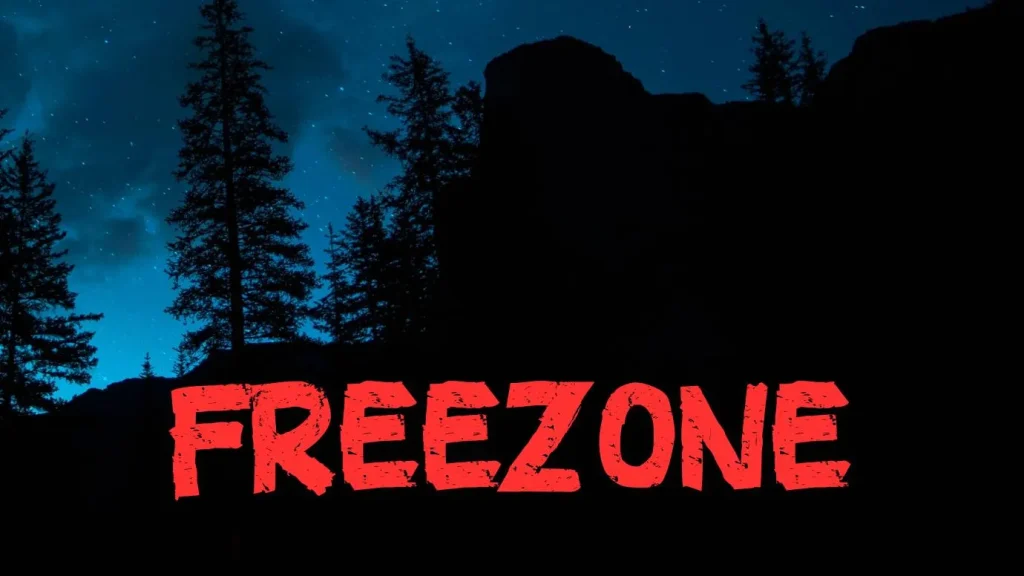
Freezone Font is a fancy design that incorporates a set of optional cords, which embraces its versatility. This typeface contains in-vogue glyphs and characters the design may be an incredible choice for any task that needs a touch of elegance. Get its free version and include a stylish touch to the project. Creativework69 Studio created this unique design.
This font additionally has both lowercase characters and capitalized characters, as well as a huge number of ligatures. This font helps creators when designing themes. You can use this font to create remarkable and eye-catching designs.
It’s ideal for giving your work uniqueness as well as making it differentiate itself from other projects. Due to its eye-catching design, this font is commonly used in a lot of stylish projects.
This typeface has special letters with an elegant look that are very useful for designers. Because of the strong and display characters, it is often used for titles and headlines.
The design is very stylish of this font. It comes in a unique weight, making it suitable for a variety of designs. Designers can create text graphics and name designs using its generator tool.
How to Utilize the Freezone Font For Branded Purposes?
Your upcoming design project will surely become more exciting with the use of this amusing and unique typeface. Typically, this typeface is used to create subtitles, brief phrases, and labeling.
The typeface’s elegant design has made it into an iconic design. It is frequently used for sales, PR, and marketing initiatives.
This typeface may also be used to create innovative greeting cards, weblog patterns, marketing concepts, letterhead layouts, graphics, card designs, special event designs, greeting card styles, cushion designs, mug designs, and other things.
Different Ways to Use the Freezone Font
Visual designers utilize this textual style because of its striking and tasteful looks. This excellent font can be used to create eye-catching logos for various businesses.
You’ll do your coursework introductions utilizing this typeface and make it more appealing to your instructors and classmates. The design can be used to create interesting covers, shop names, logos, and websites. It could be made a well-known pair with chevrolet font.
The typeface also can create stunning logos and branding materials. Projects that can be designed with the font included emails and texts, webpages, logos, theme parties, and also more.
Common Questions about Freezone Font
What font looks good with Freezone?
There are many typefaces that look good with this font. so you can easily get a new texture typeface to combine it with the centography font.
Can I use Freezone font on my website?
This font style is best for making website detail. Moreover, you can also use it to create logos, social media posts, and other graphics for your website
Can I use Freezone on my Poster?
Yes, This Font can be used on Posters. This font has a bold vision that can easily get an eye-catching appearance.